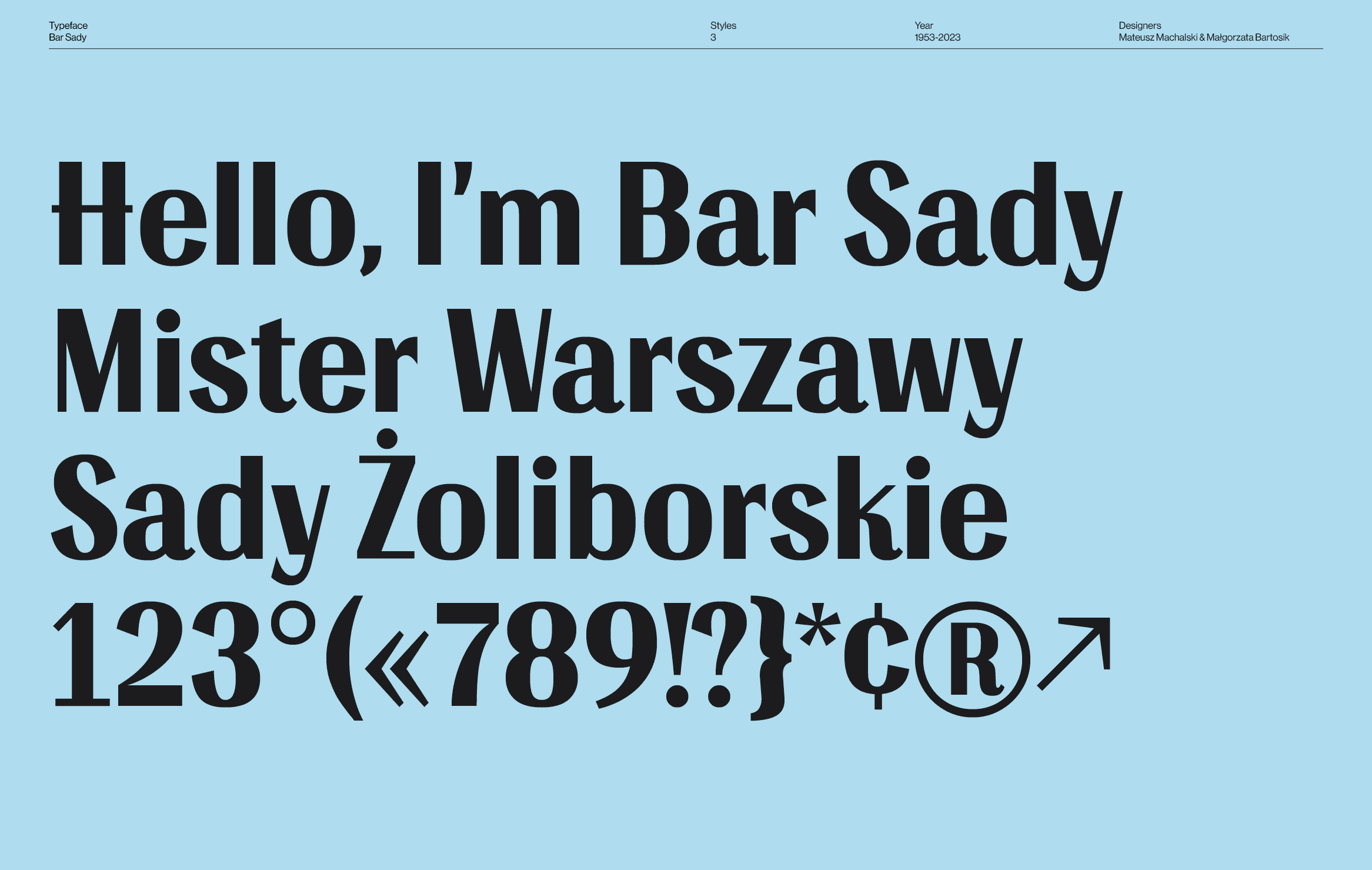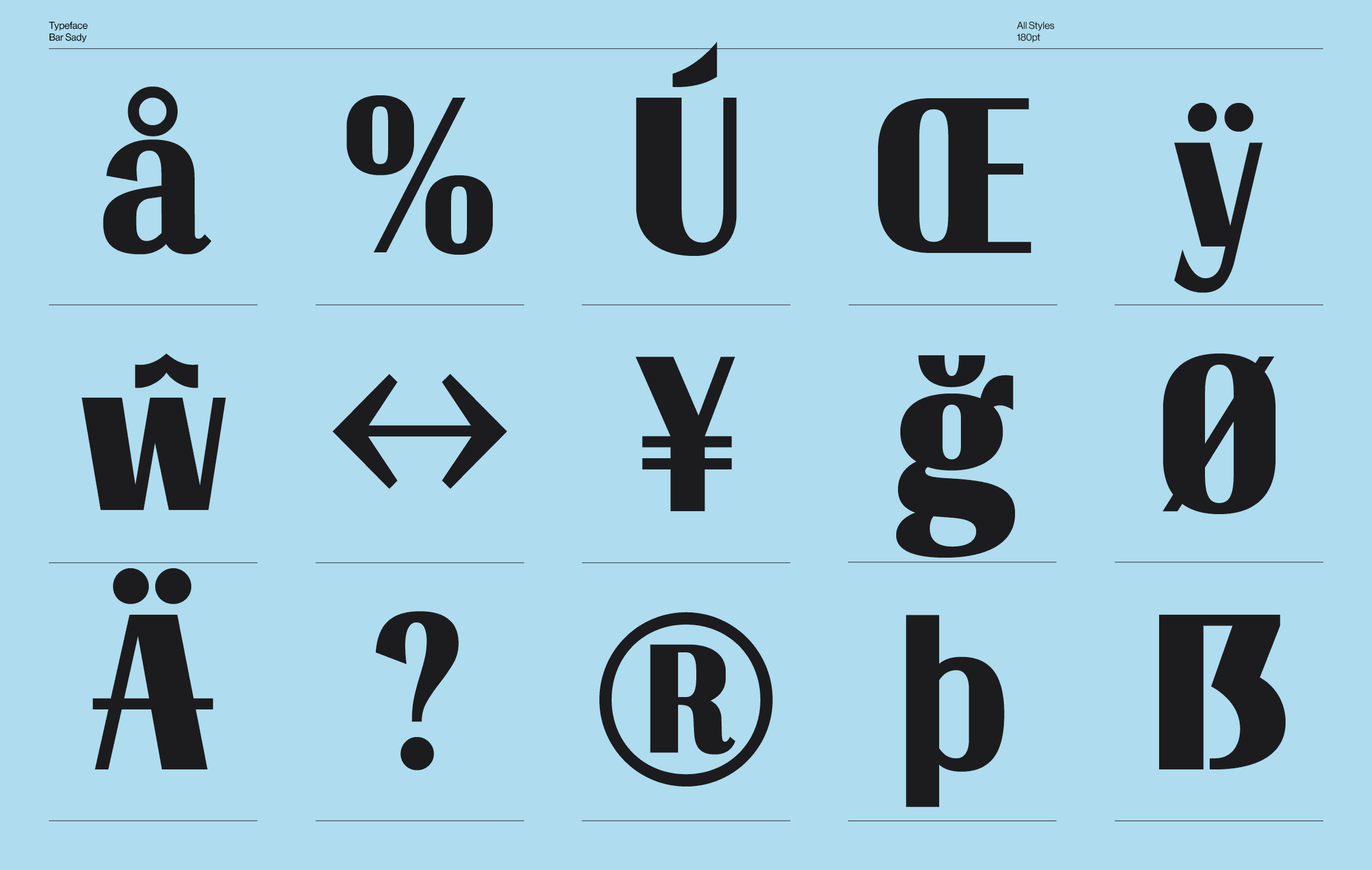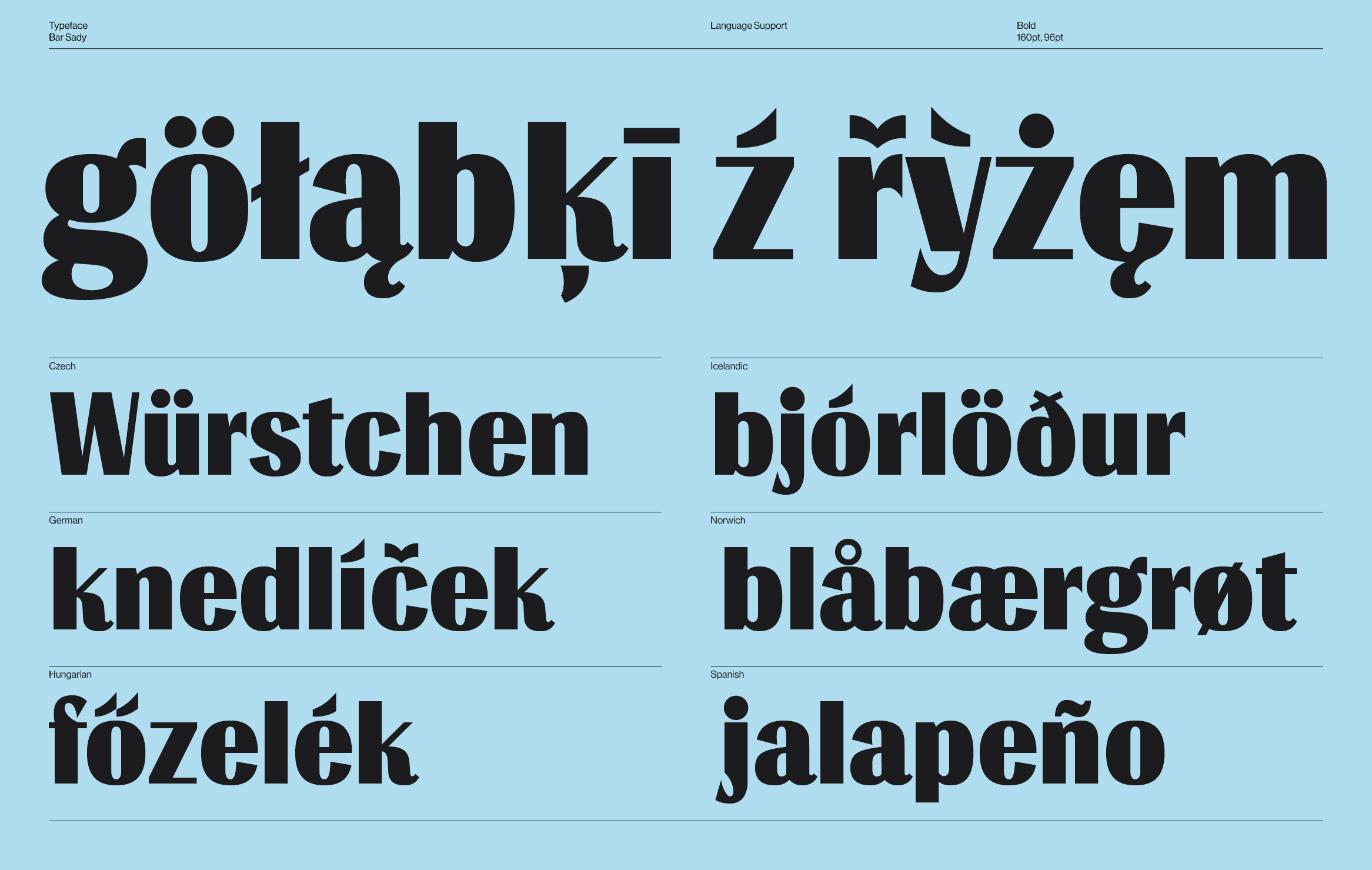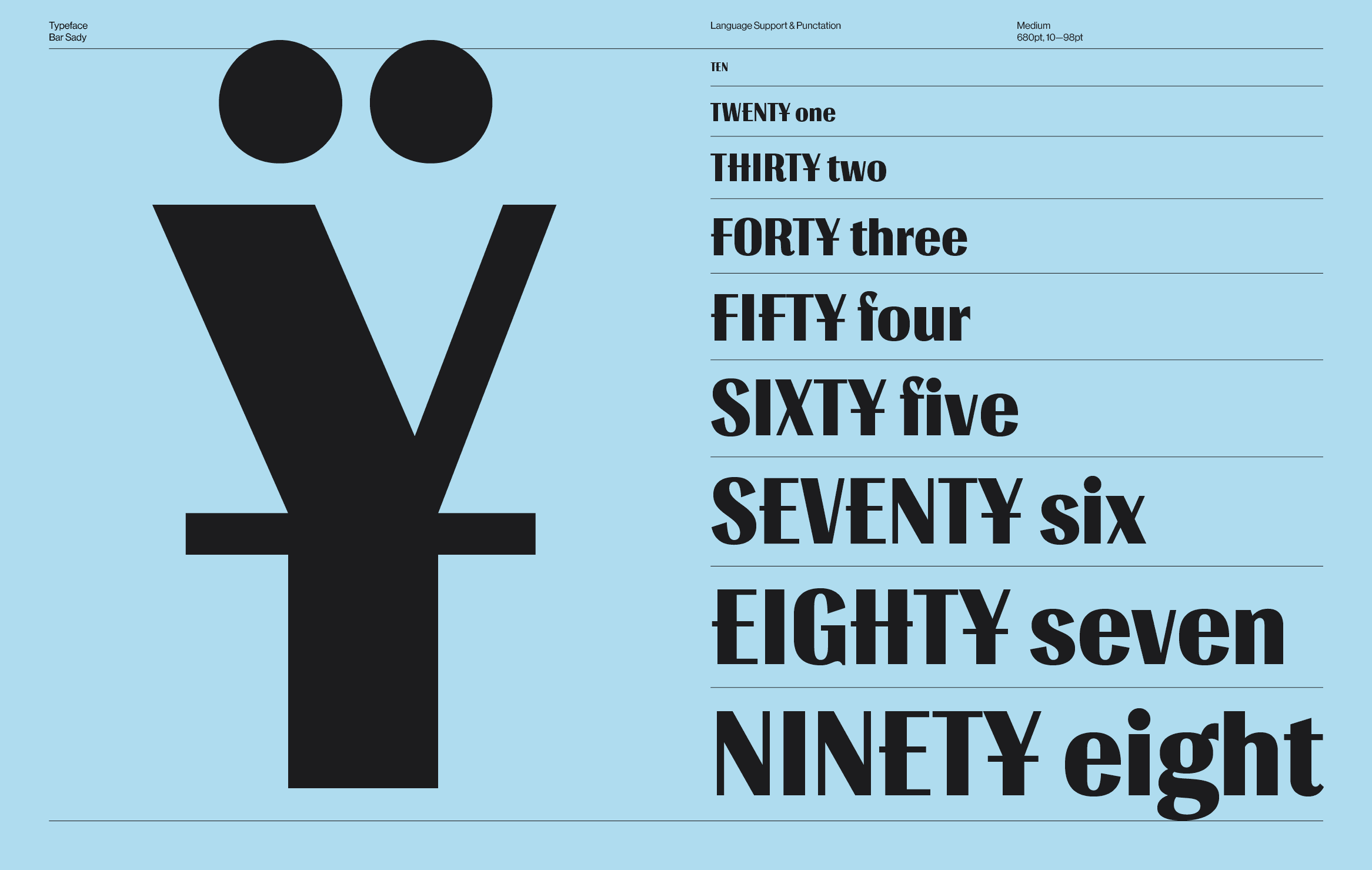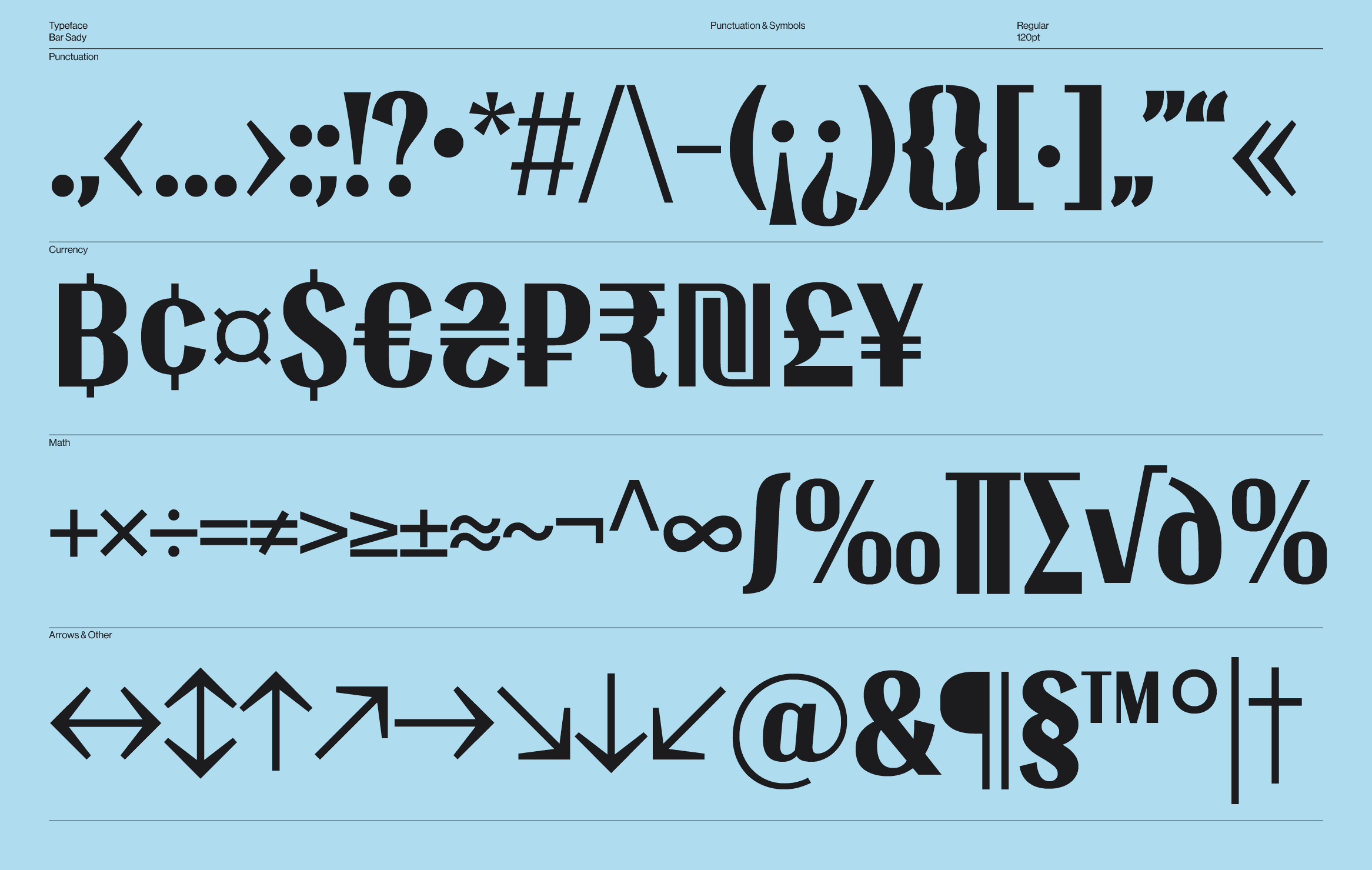
Bar Sady
Bar Sady is a revival typeface based on the sign above Bar Mleczny "Sady" — a milk bar that has stood in Warsaw's Żoliborz neighbourhood since the 1960s. The original lettering, designed specifically for that one sign, became part of local identity: recognised across the city for its PRL-era character and a defining quirk — horizontal strokes that extend beyond the letter bounds, giving the typeface its unmistakable silhouette.
The revival was created by Mateusz Machalski & Małgorzata Bartosik as part of the Warsaw Participatory Budget 2023. The original letters were lifted, cleaned up and extended into a full character set, with a bold style added to complete the family. The goal was to refine without erasing — improving details and proportions while keeping the vernacular spirit of the source.
Available in three weights plus a variable version, under a free license. Built for display. Includes Latin with European diacritics.
Typeface Design: Mateusz Machalski & Małgorzata Bartosik
Styles: 3 & Variable, Glyphs: 365, Design date: 1953–2023
Language Support: Latin: Basic, Western European, Central European, South Eastern European